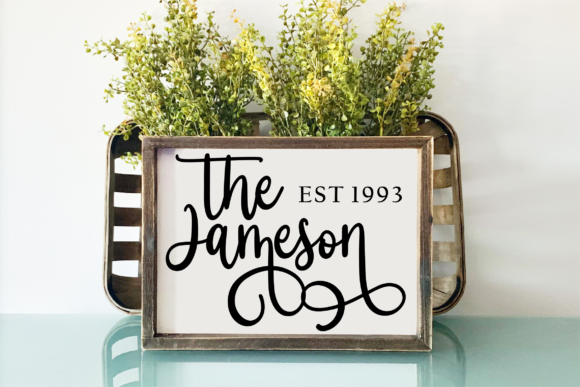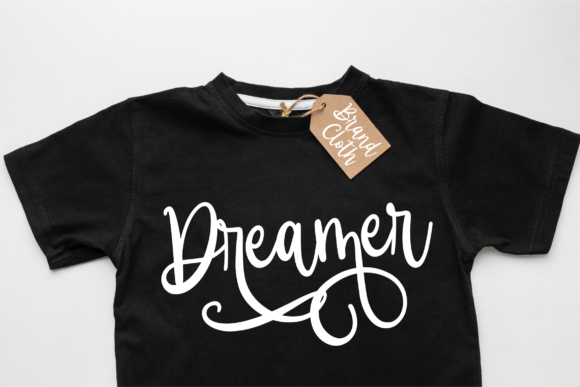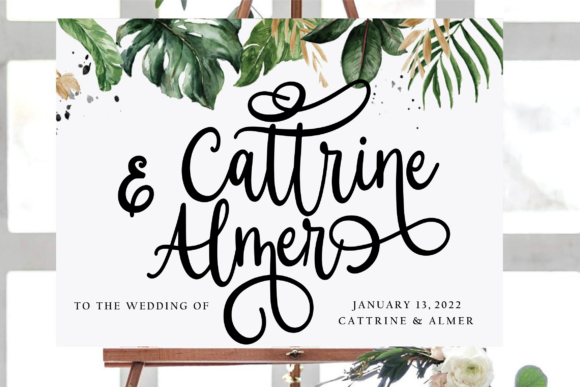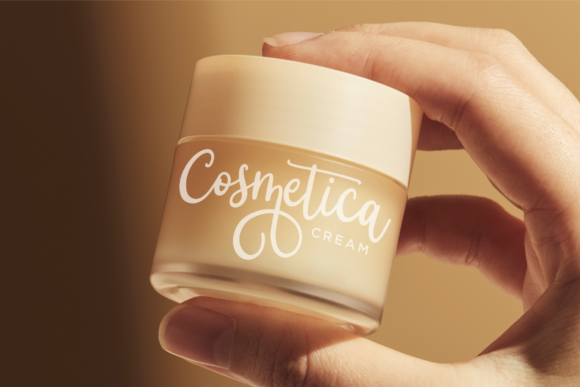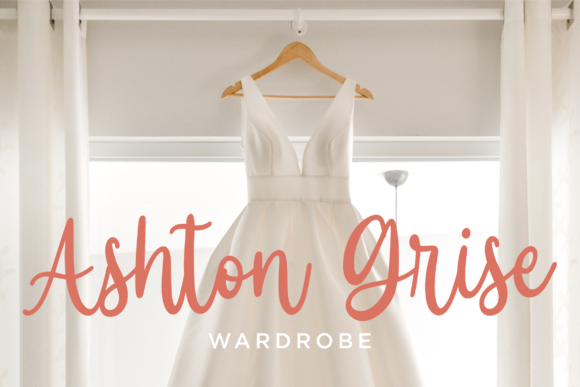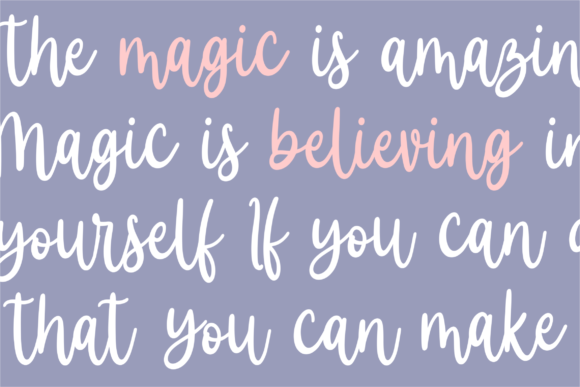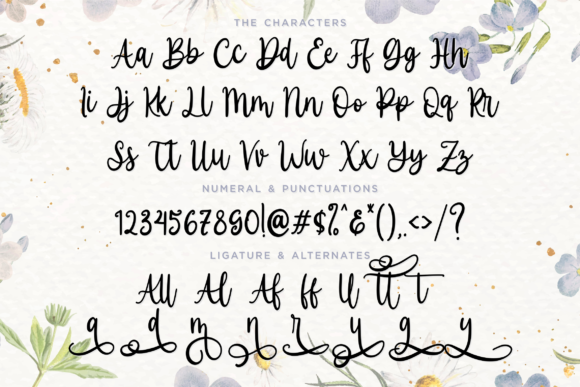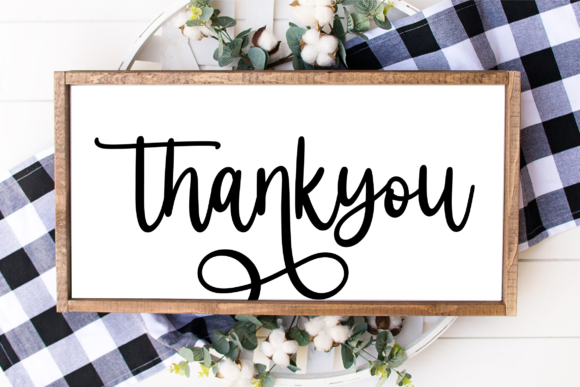
Algisttalleya Font
About Algisttalleya Font
Algisttalleya is a beautiful and light handwritten font with a unique feel and a stunning impact. It will add a luxury spark to any design project that you wish to create! This font is PUA encoded which means you can access all of the amazing glyphs and ligatures with ease!